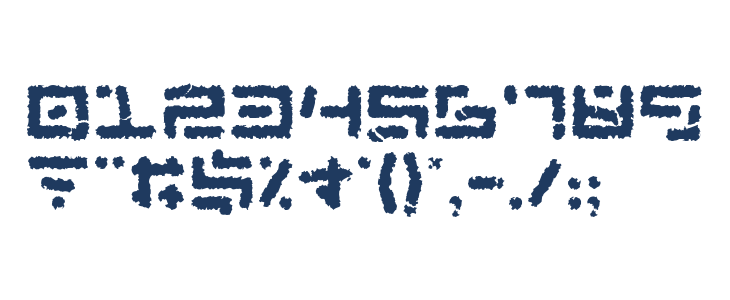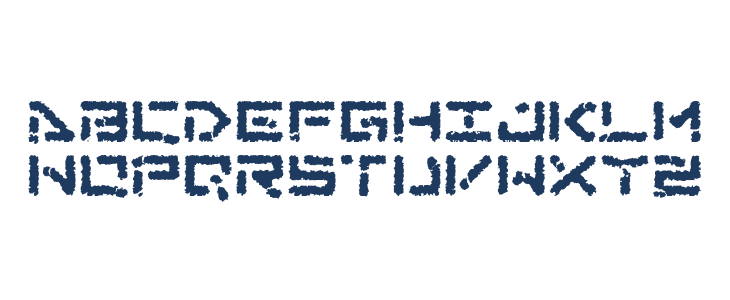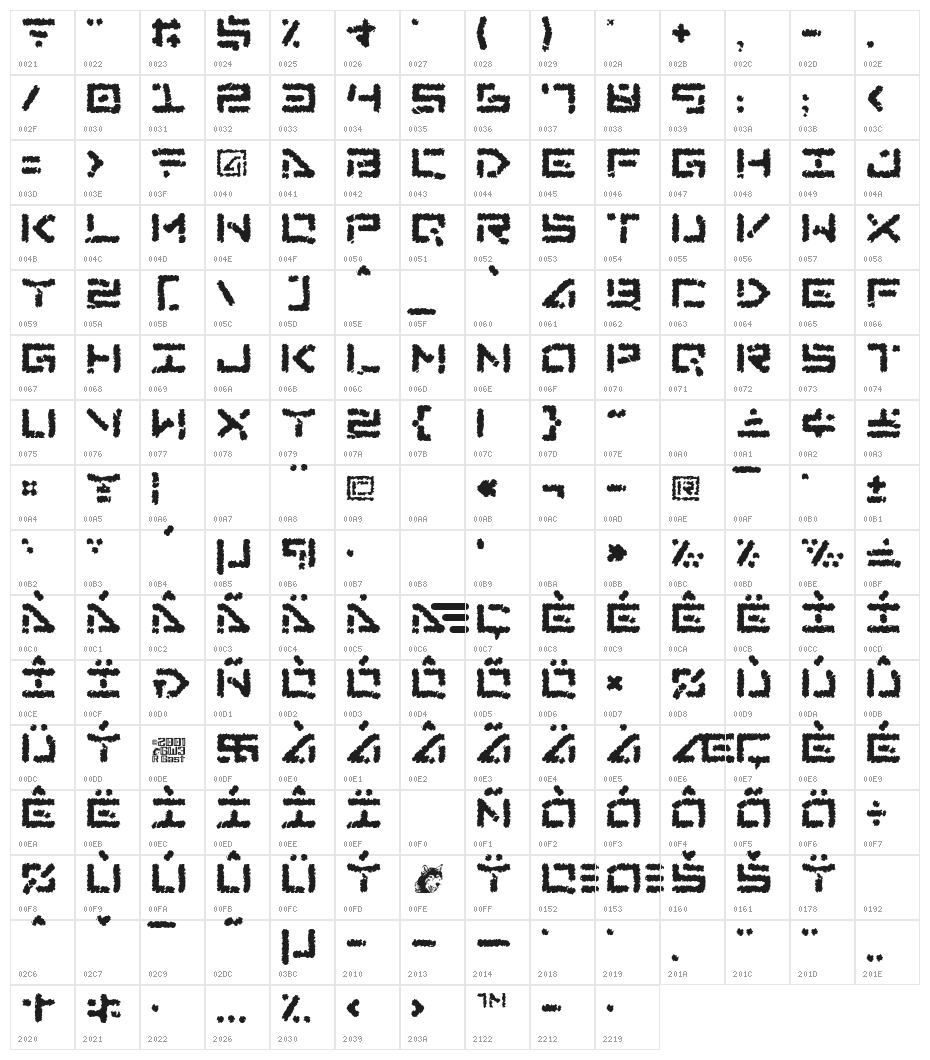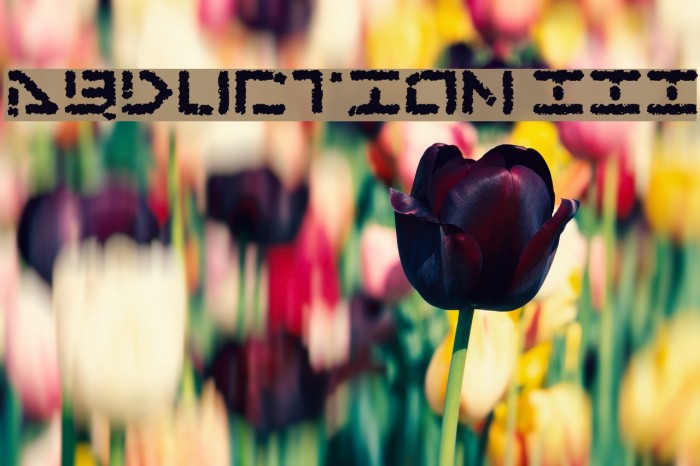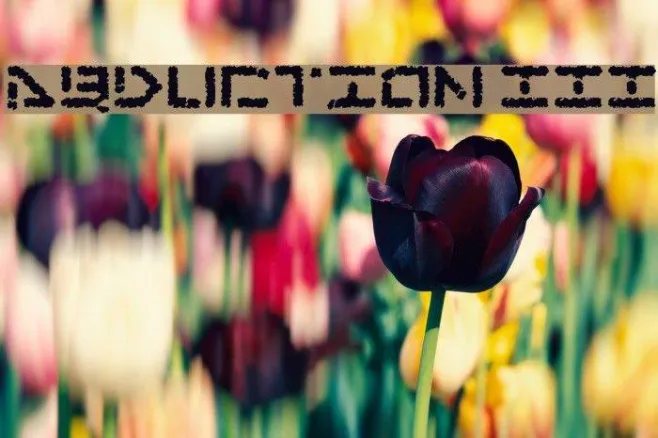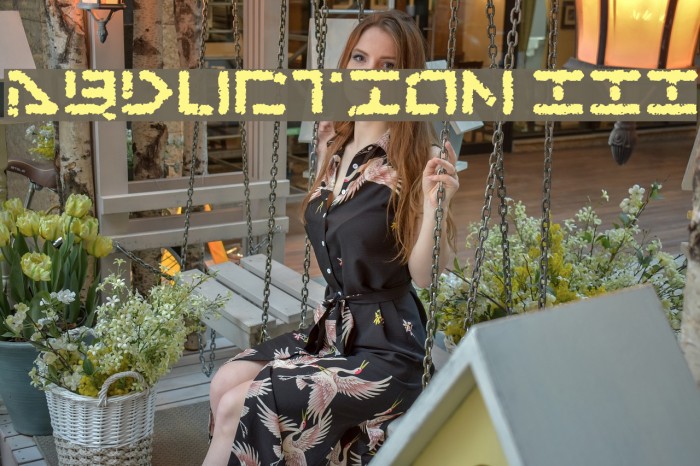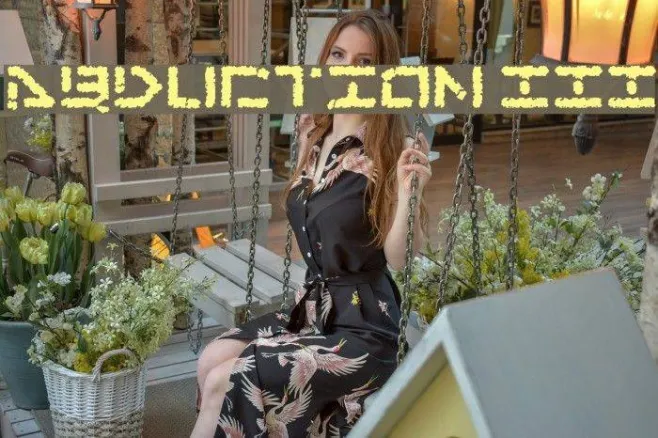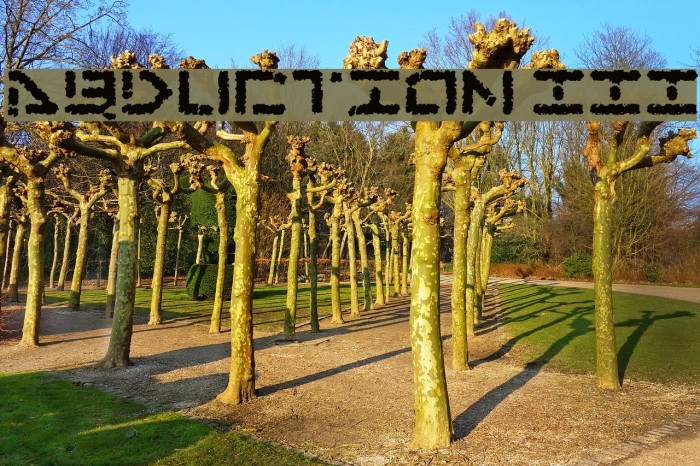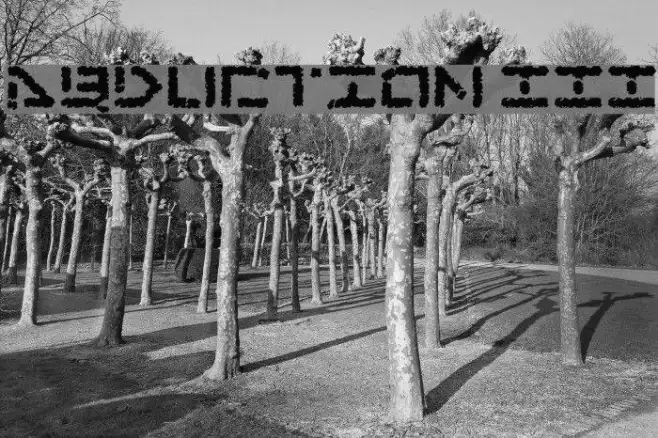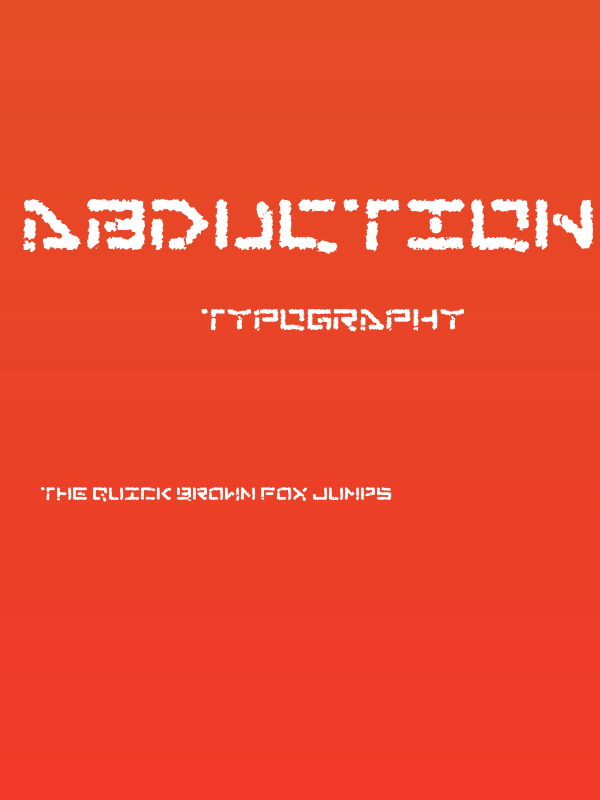
Abduction III Font
Abduction III Description
This font features a unique, distressed appearance with a futuristic and digital aesthetic. The characters are constructed with a pixelated, fragmented style that gives an impression of being eroded or glitchy. Each letter and number is composed of bold, angular shapes that are partially broken, creating a sense of movement and dynamism. The font maintains a consistent height across characters, ensuring readability despite its unconventional design. The special characters follow the same fragmented style, adding to the cohesive look of the font. This font is ideal for projects that require a modern, edgy, and tech-inspired look.
| Proposed Projects | Ideal for video game titles, sci-fi movie posters, tech event branding, and digital art projects. |